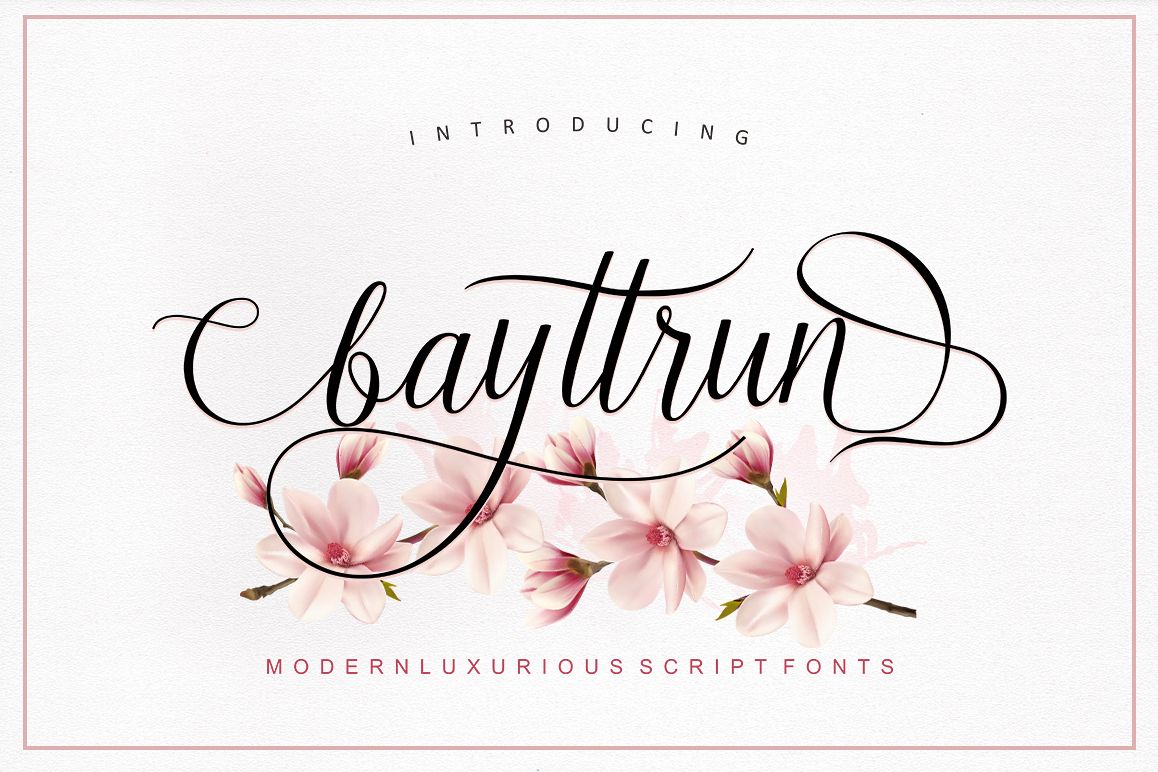
Bayttrun Script
Bayttrun-Regular
Bayttrun Script is a new modern script font with a smooth base line, trendy and feminine style. This font fits on T-shirts, thank you cards, quotes, greeting cards, logos, business cards and more. Perfect for use in ink or watercolors. Includes initial letters and terminals, alternatives and multiple language support.